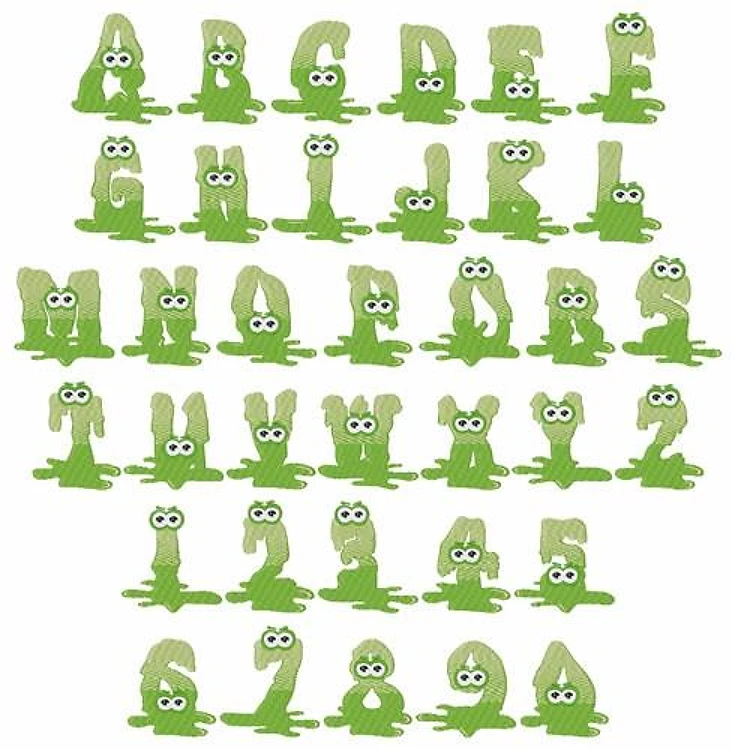
Concord Collections is happy to present Melting Goblin Embrilliance - Playful Decorative Design - BX font machine embroidery font which has Cartoonish decorative machine embroidery font featuring melting green letters with playful eyes, perfect for holiday projects on themed apparel or decorations. Available in BX font and Embrilliance formats. included. If you would like to view more embroidery fonts and alphabets please search our embroidery fonts page.
Melting Goblin Embrilliance - Playful Decorative Design - BX font